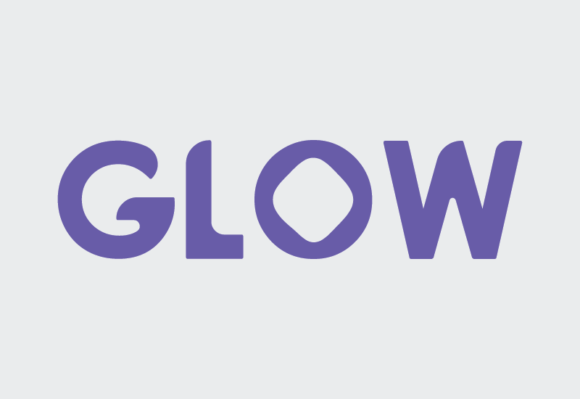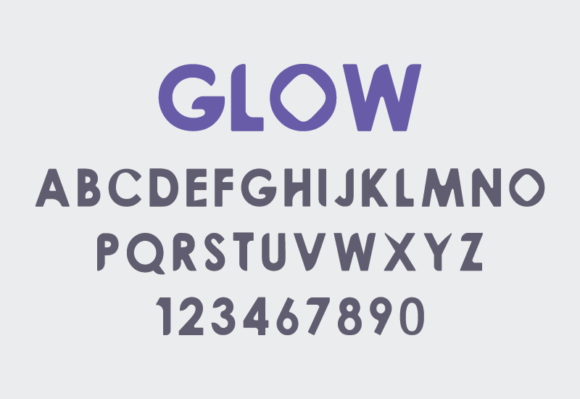
Introducing Glow Font: The Ultimate Choice for a Clean Retro Look
In the world of design, fonts play a crucial role in conveying a message and creating a lasting impression. For designers and crafters looking for a font that exudes a clean retro look, Glow Font is an excellent choice. This simple sans-serif font is designed to provide a minimalist aesthetic, making it perfect for various applications, including tattoos, logos, web design, and branding.
What is Glow Font?
Glow Font is a carefully crafted sans-serif font that draws inspiration from vintage typography. Its balanced proportions and clean lines make it an ideal choice for designers seeking a retro look without compromising on legibility. The font’s simplicity and elegance ensure that it can be used in a wide range of design projects, from modern logos to tattoos.
Key Features of Glow Font
- Clean and Simple Design: Glow Font boasts a clean and simple design that ensures high visibility and easy legibility, even from a distance.
- Retro Aesthetic: The font’s vintage balanced proportions give it a unique retro look that is sure to appeal to designers and crafters.
- Minimalist Aesthetic: Glow Font is perfect for creating a minimalist aesthetic in various design projects, including tattoos, logos, web design, and branding.
- High Legibility: The font’s design prioritizes legibility, making it an excellent choice for use in signage, titles, and headings.
Use Cases for Glow Font
Glow Font’s versatility makes it suitable for a wide range of applications. Here are some use cases where Glow Font excels:
- Tattoos: The font’s clean and simple design makes it an excellent choice for tattoos, where legibility and aesthetics are crucial.
- Logos: Glow Font’s retro aesthetic and minimalist design make it perfect for creating modern logos that require a unique touch.
- Web Design: The font’s high legibility and clean design ensure that it can be used effectively in web design, enhancing the overall user experience.
- Branding: Glow Font’s versatility makes it an excellent choice for branding projects, where consistency and legibility are essential.
Benefits of Using Glow Font
Using Glow Font in design projects offers several benefits, including:
- Improved Legibility: The font’s high legibility ensures that messages are conveyed clearly and effectively.
- Enhanced Aesthetics: Glow Font’s retro aesthetic and minimalist design enhance the overall visual appeal of design projects.
- Versatility: The font’s versatility makes it suitable for a wide range of applications, from tattoos to web design.
- Easy to Read: Glow Font’s clean design makes it easy to read, even from a distance, making it perfect for signage and titles.
Tips for Using Glow Font Effectively
To get the most out of Glow Font, consider the following tips:
- Pair with Other Fonts: Experiment with pairing Glow Font with other fonts to create a unique visual hierarchy.
- Adjust Font Size: Adjust the font size to ensure optimal legibility and aesthetics.
- Use in Combination with Images: Use Glow Font in combination with images to create visually appealing designs.
Glow Font is an excellent choice for designers and crafters seeking a clean retro look. Its simple sans-serif design, vintage balanced proportions, and high legibility make it perfect for various applications, including tattoos, logos, web design, and branding. With its versatility and ease of use, Glow Font is sure to become a staple in any designer’s font library.